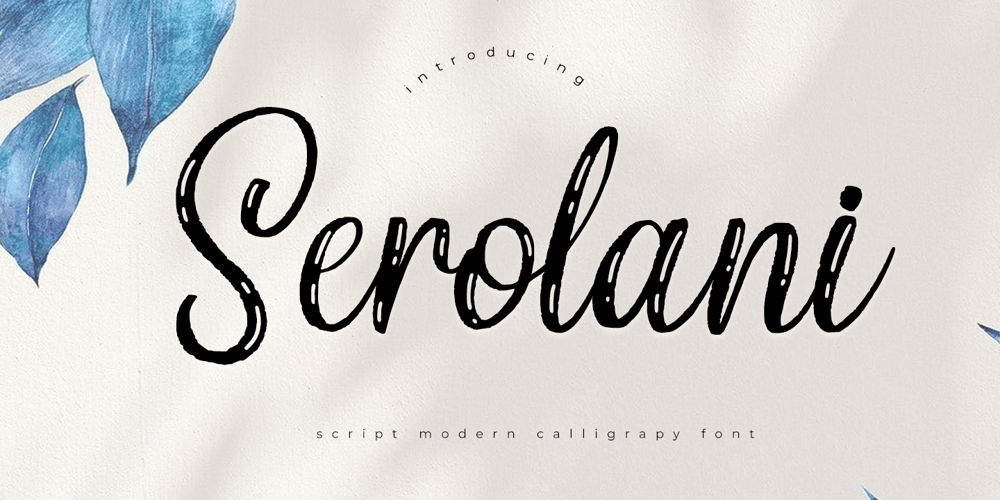
Serolani Font Family was designed by Muhammad Zaini and published by Cocodesign. Serolani contains 1 styles and family package options. Serolani brush Script is a modern calligraphy design, including Regular. This font is casual and beautiful with swash. Can be used for various purposes. such as logos, product packaging, wedding invitations, branding, headlines, signage, labels, signatures, book covers, posters, quotes, and more.